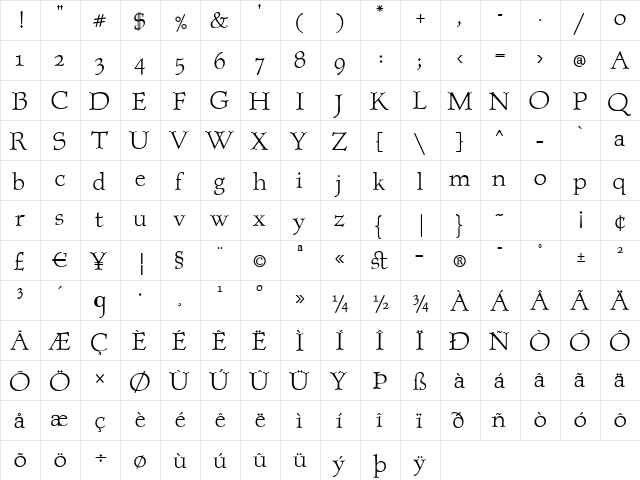
Albion Regular
Design Context for Albion Typeface
Albion takes a measured approach to typography — its balanced proportions and neutral character make it a reliable workhorse for both digital and print work.